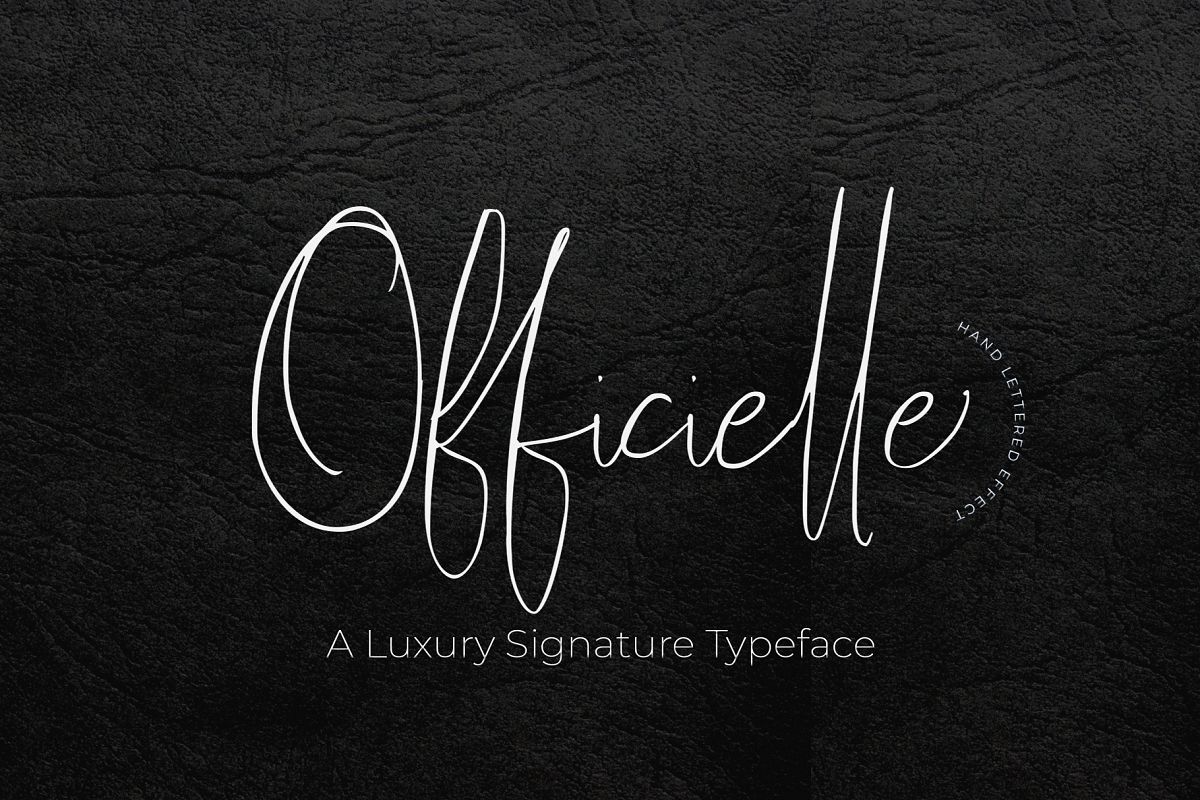
Officielle | Lovely Signature Font
Hello welcome again, introducing Officielle is a lovely high fashion font that makes for gorgeous logos, posters, wedding invitations, blog posts, social media, and more!
Love using them together with layer masks in Photoshop, so it looks like the script is running through the lines of the pairing with serif or sans-serif.
Officielle Script includes over 30 ligatures to make everything look totally hand-done, and alternates for each letter.
2. Upper + Lowercase Letters w/ alternates
3. Numbers + Punctuation -Non-English support
4. 30+ Ligatures